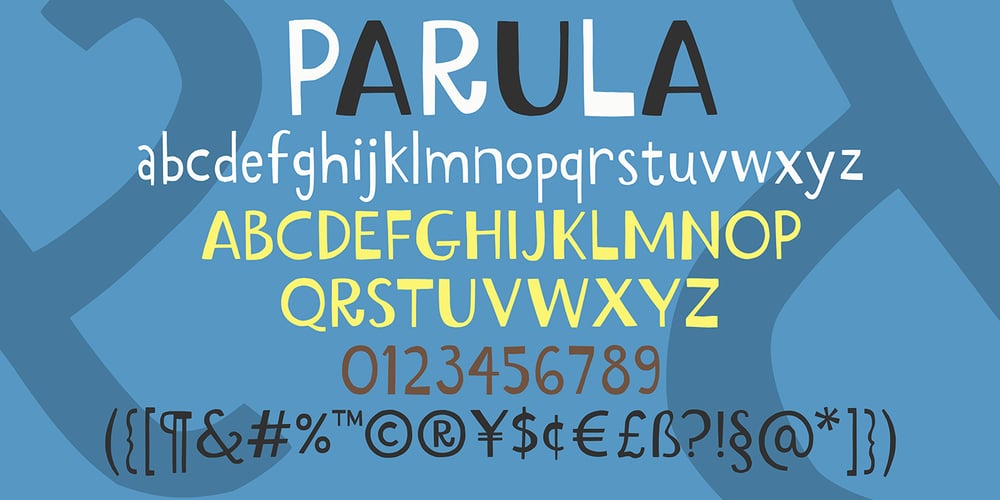
Parula Font Family was designed by Amy Dietrich and published by Atlantic Fonts. Parula contains 1 styles and family package options. Parula is cool and lively like its sweet warbler namesake. Hand-drawn with lots of unique personality and line variation, Parula lends itself to any creative project requiring youthful energy. With double-letter ligatures and more, Parula has lots of charming options, easily turned on or off. Whether creating a look for a fun family game or the cover of a new children’s book, Parula will be noticed. Parula pairs beautifully with Turmeric!